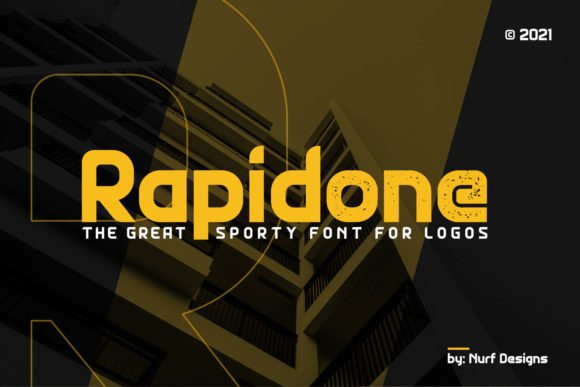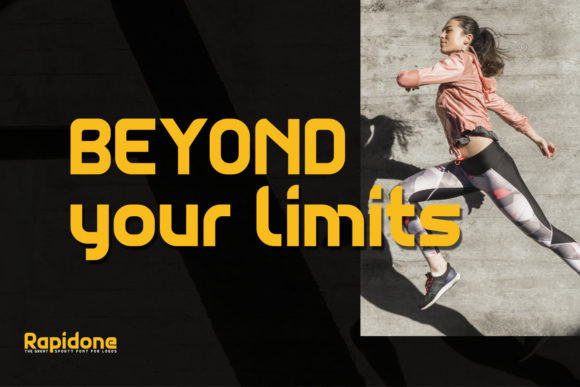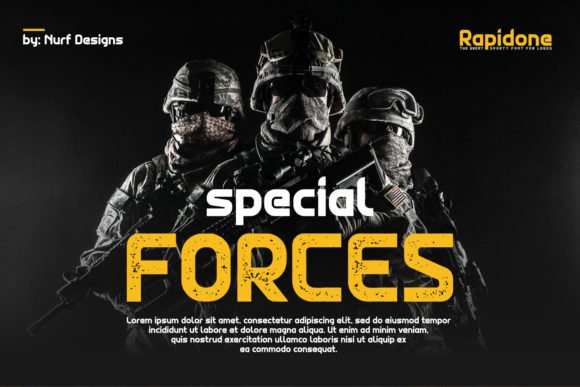
Rapidone Font
Rapidone is a cool, bold, vintage styled display font. No matter the topic, this font will be an incredibly asset to your fonts’ library, as it has the potential to elevate any creation.